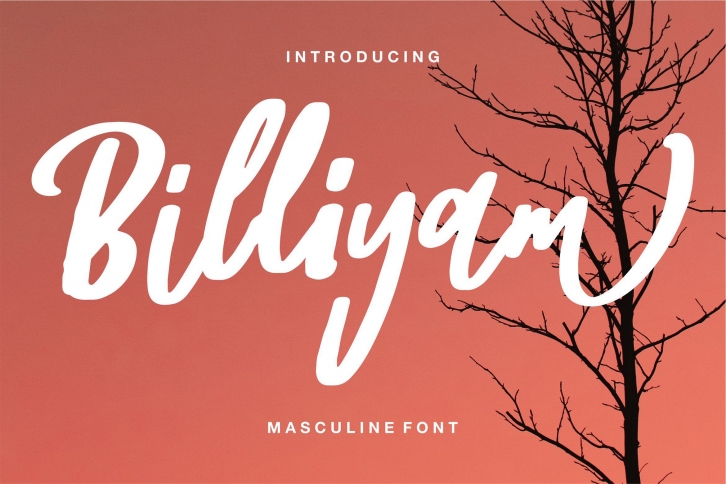
Billiyam is an enchanting handwritten font. This versatile script font has a wide spectrum of applications ranging from greeting cards to headlines and is guaranteed to add a romantic feel to your next project.